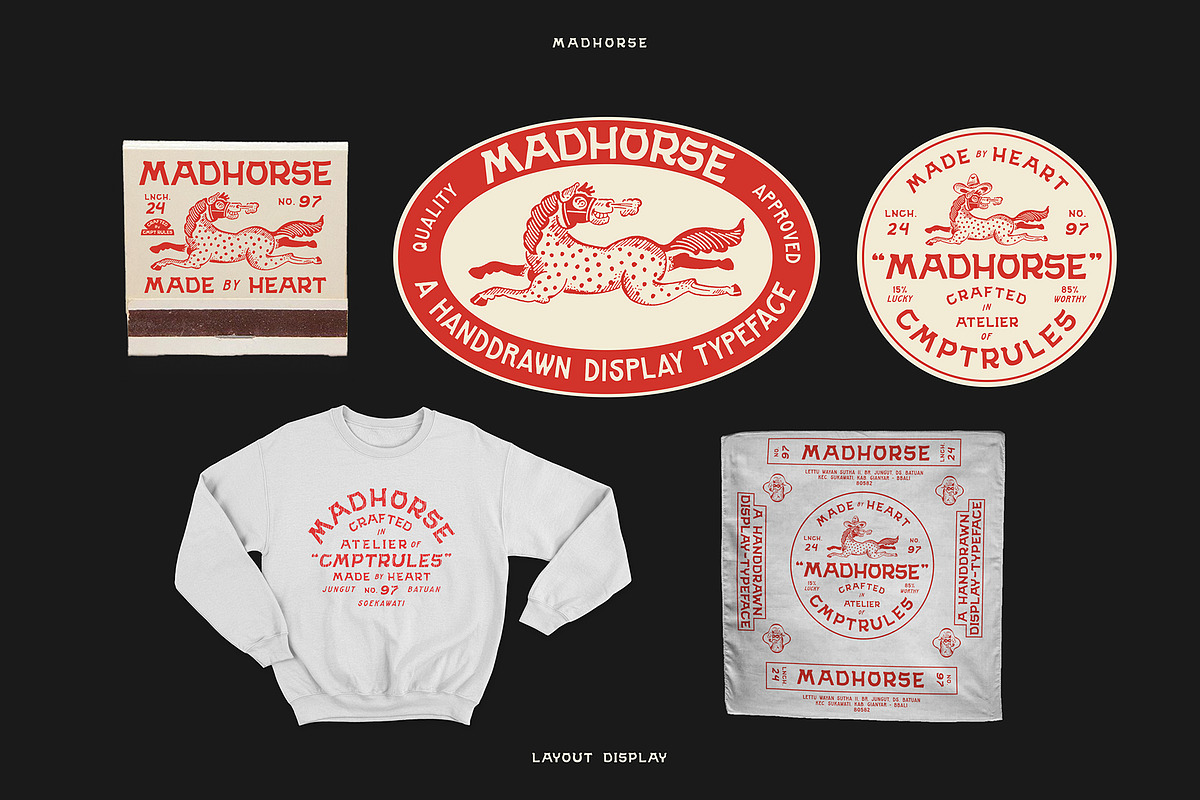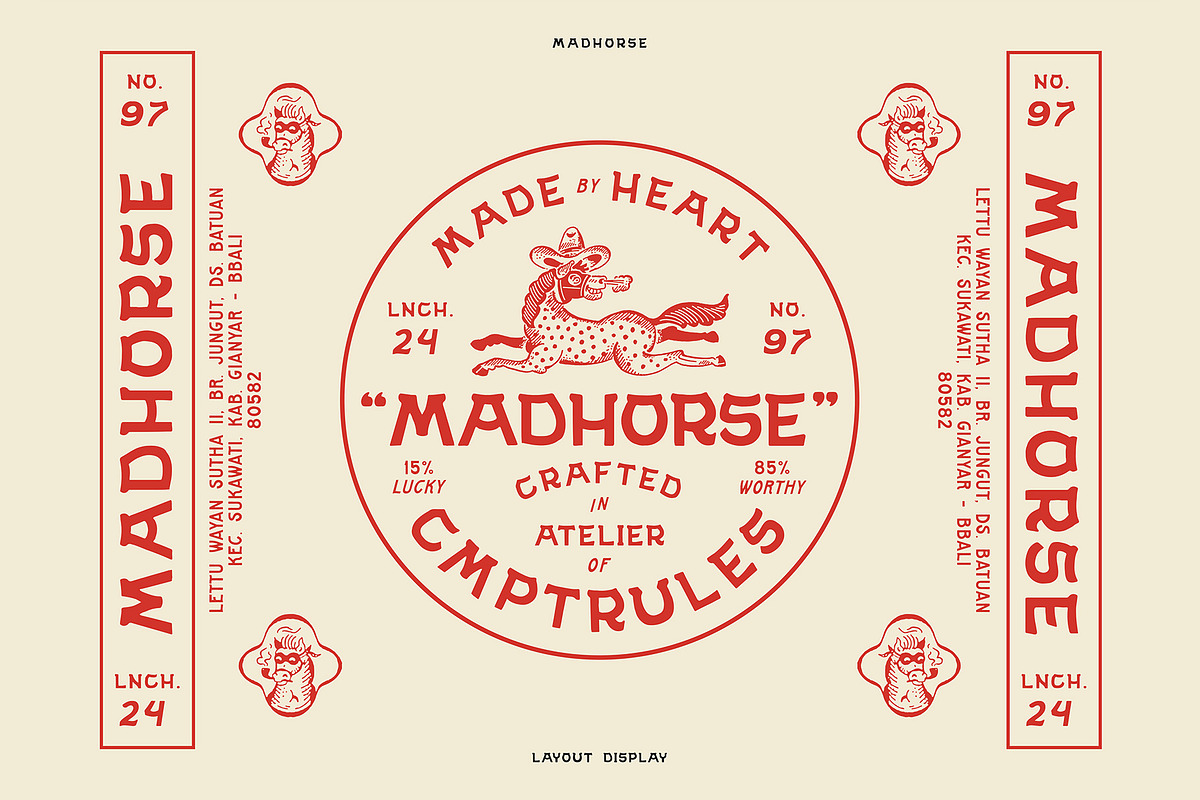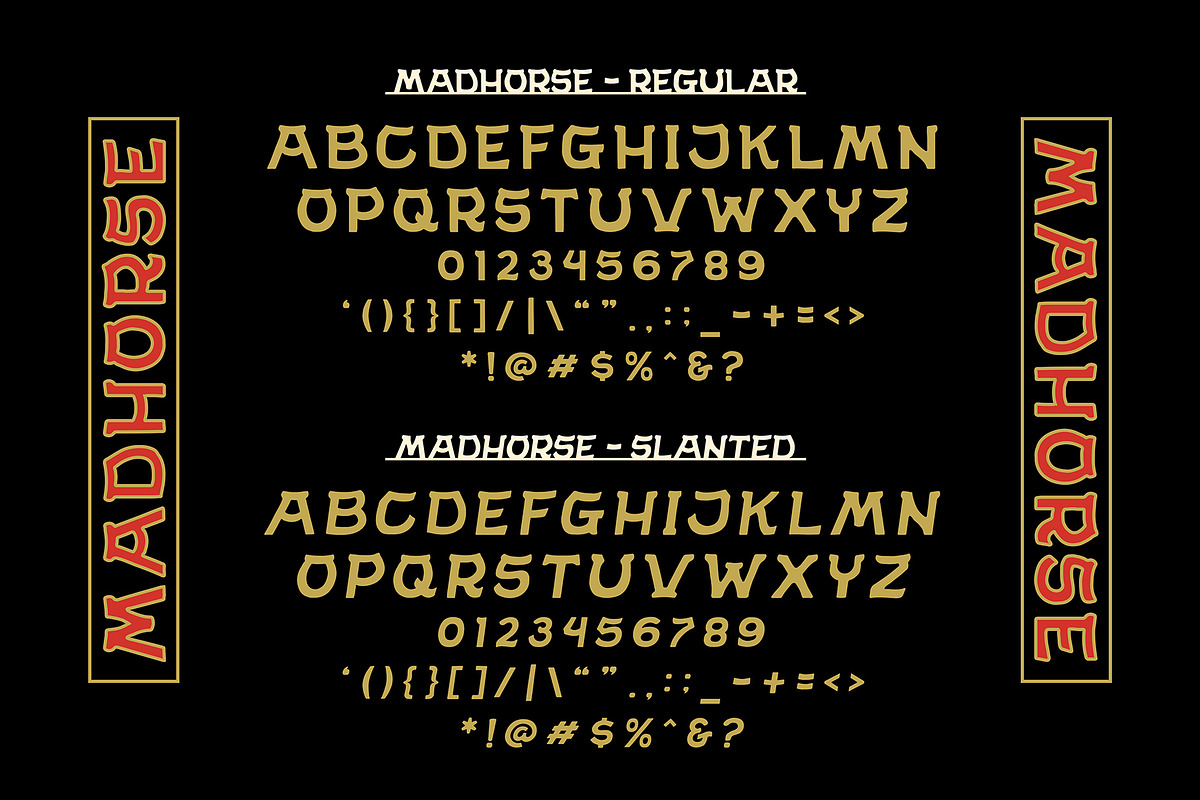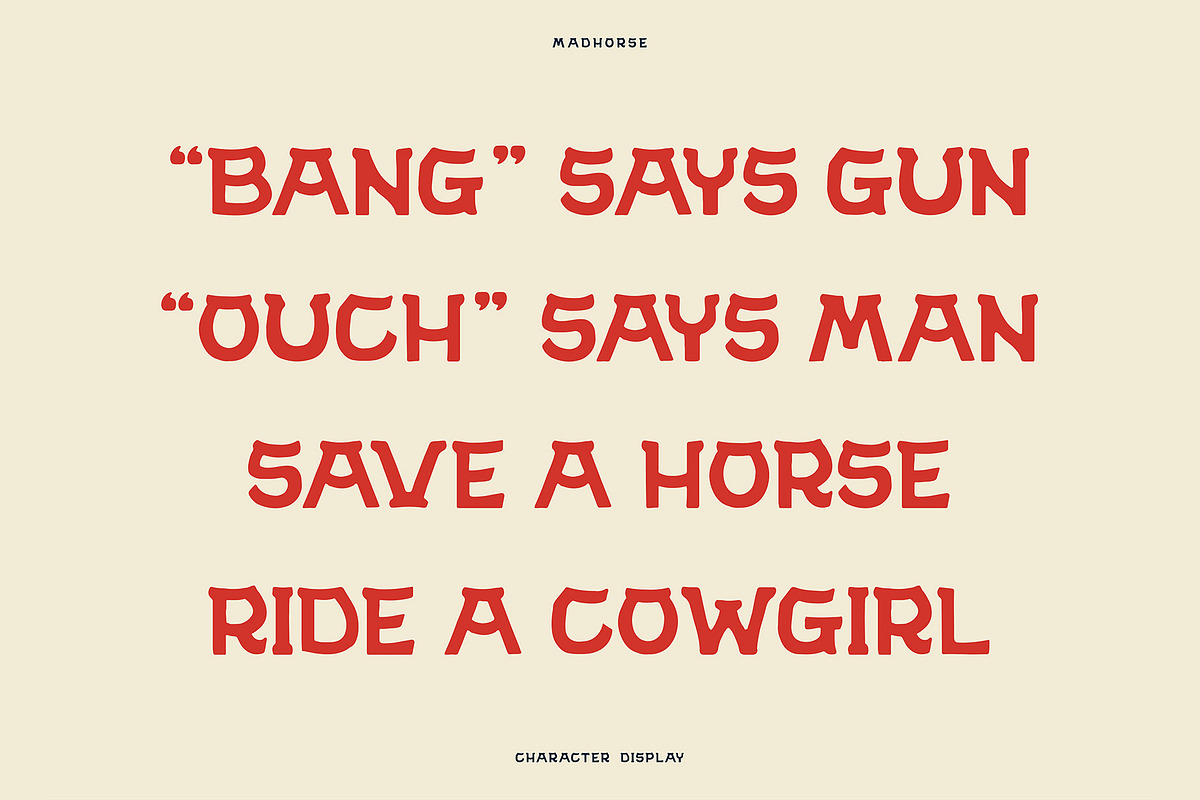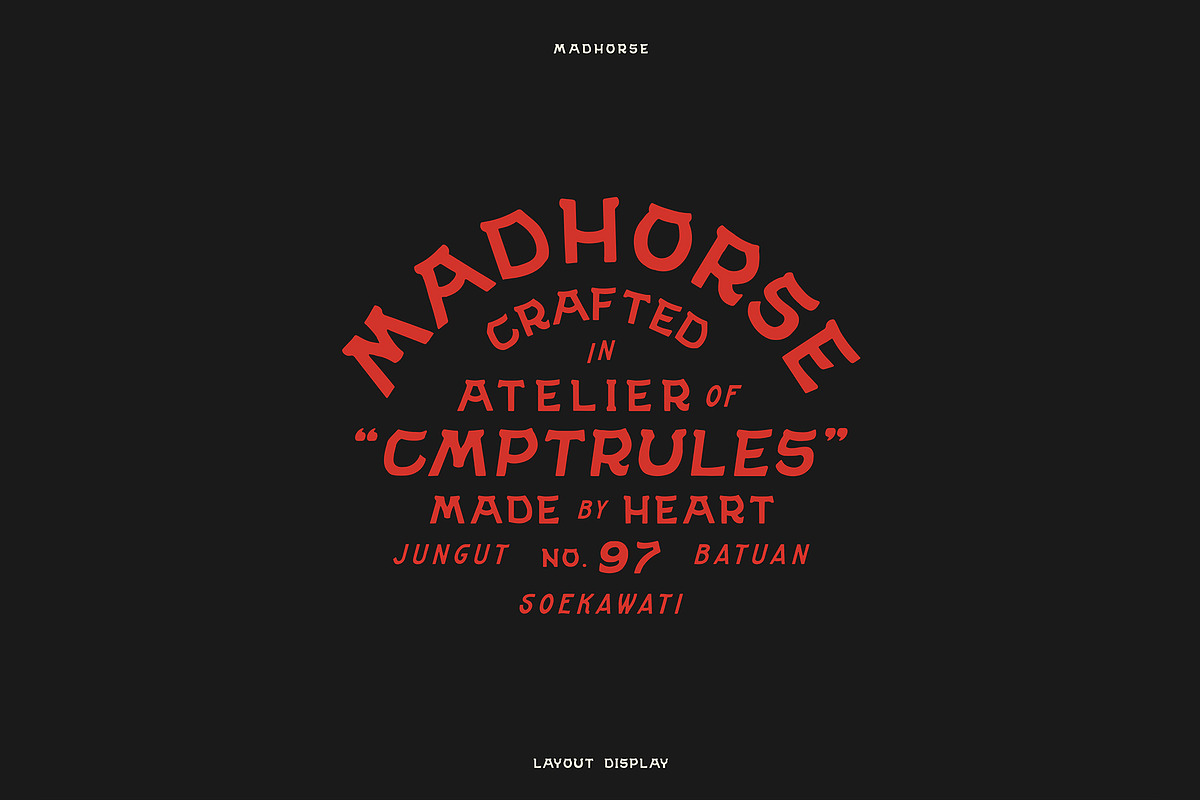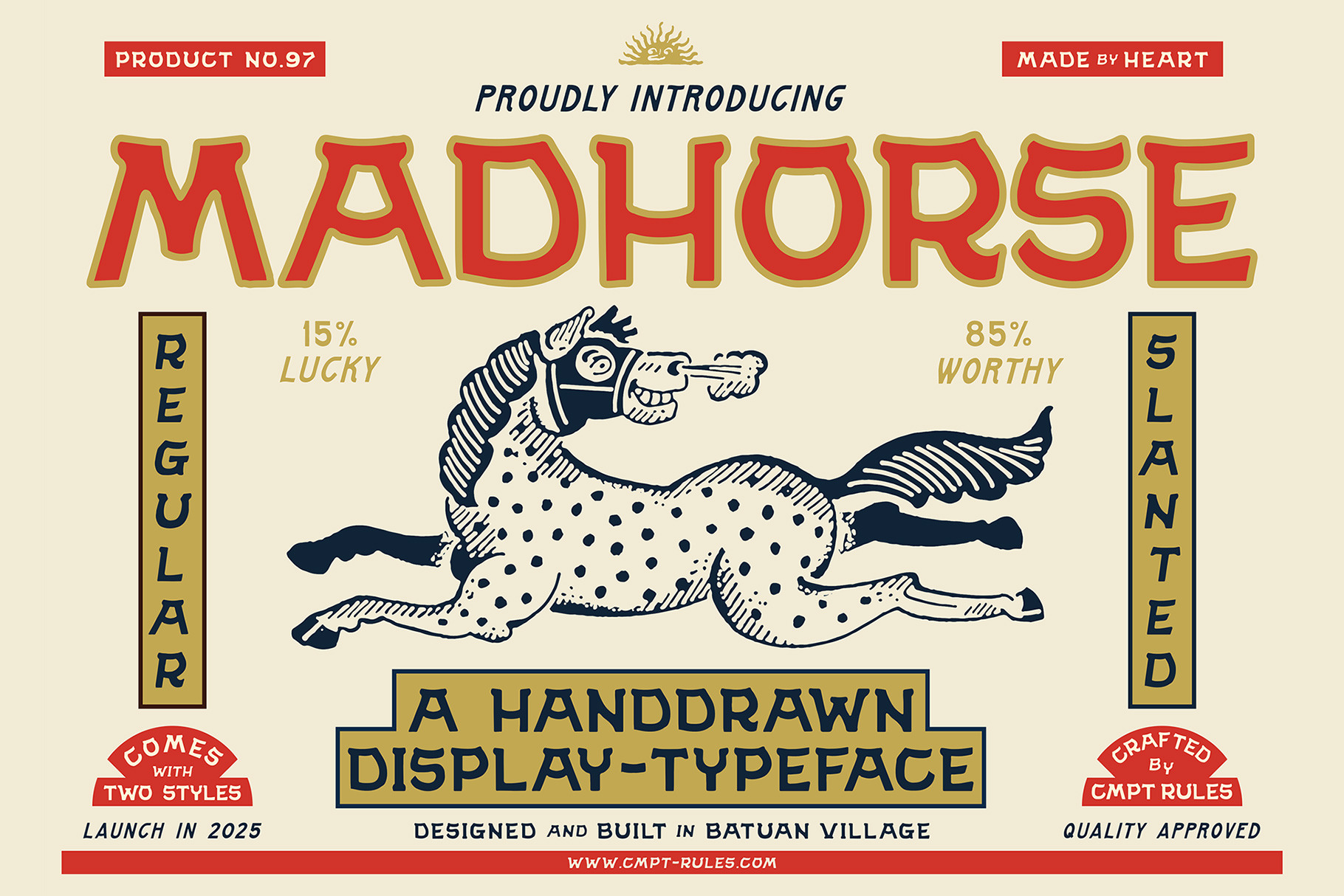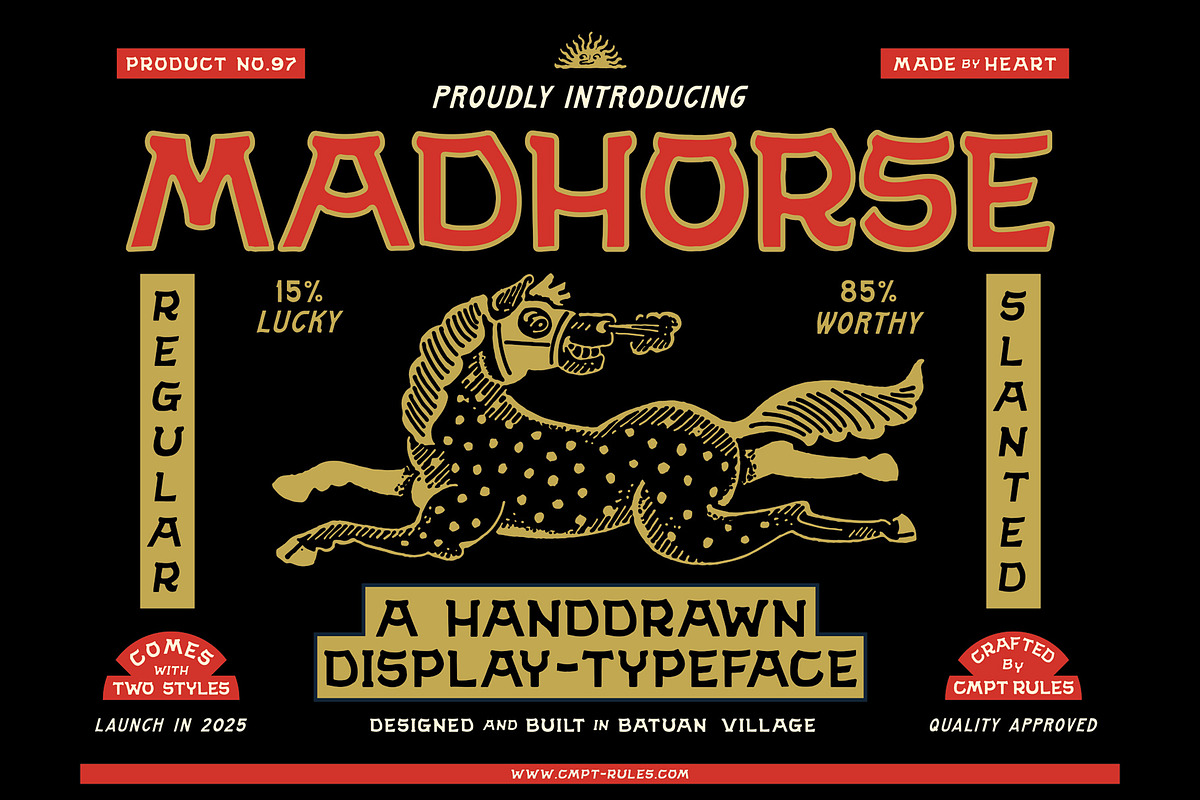
Madhorse Western Font
MADHORSE FONT is a bold tribute to cowboy culture rooted in the iconic shape of a horseshoe and reimagined through a clean, hand-drawn vintage style inspired by CMPT RULES Designed to strike the perfect balance between rugged and refined, MADHORSE brings a strong western character while keeping your visuals crisp and clean. It’s the ideal companion for illustrations, branding, and graphic design projects that want to channel a vintage western vibe without losing clarity or edge. Whether you're creating posters, apparel graphics, or themed visuals, MADHORSE is ready to ride.